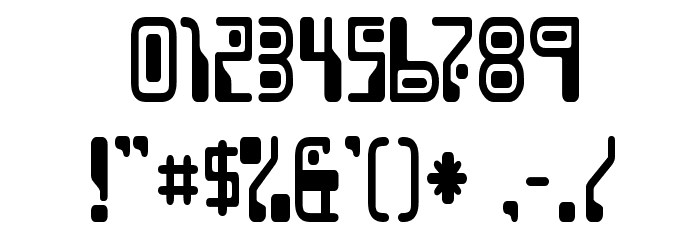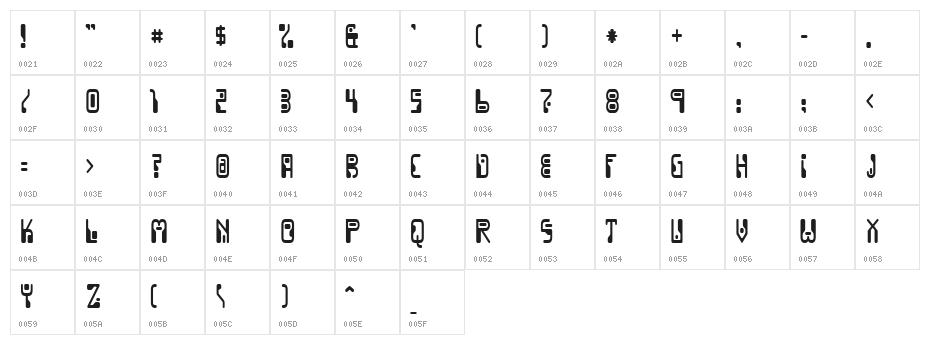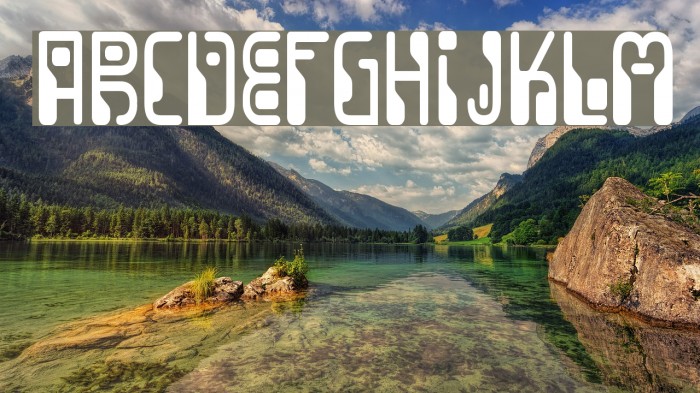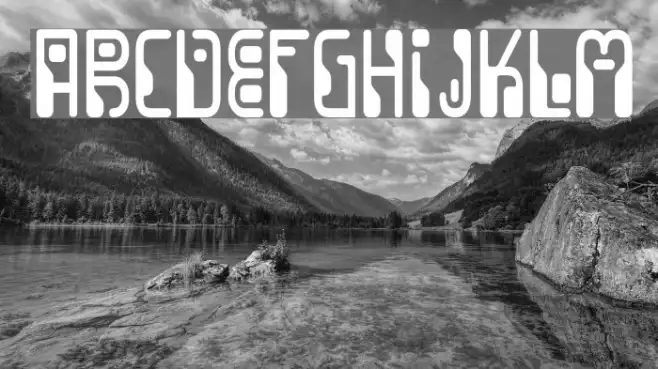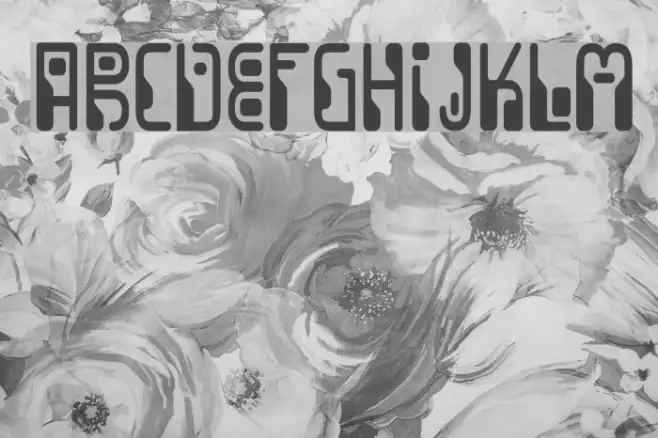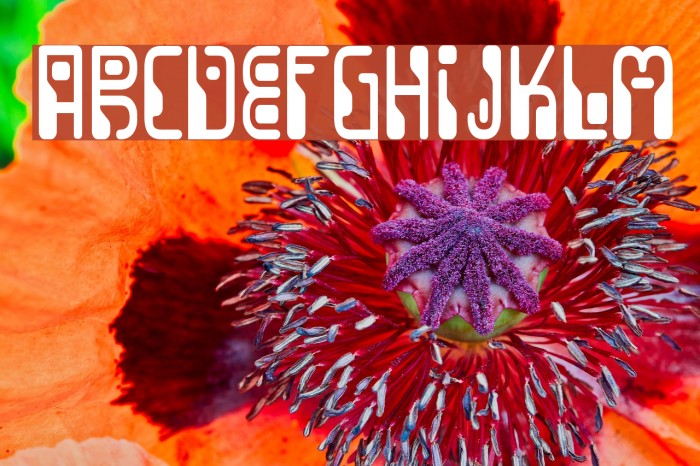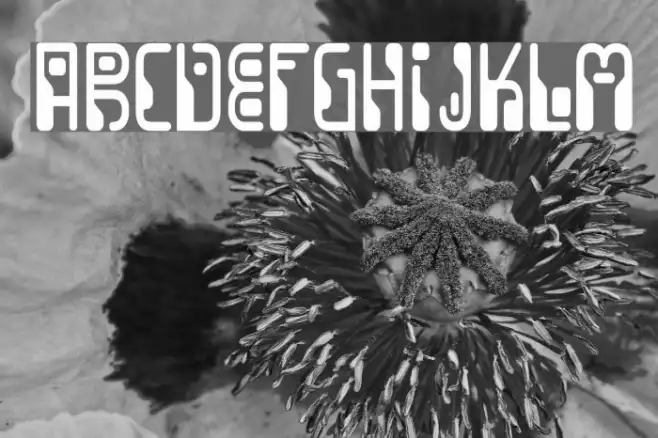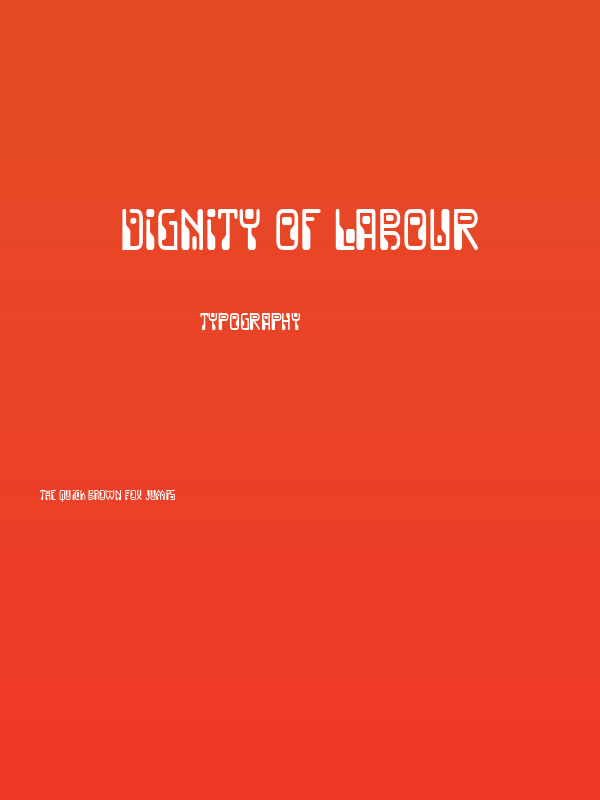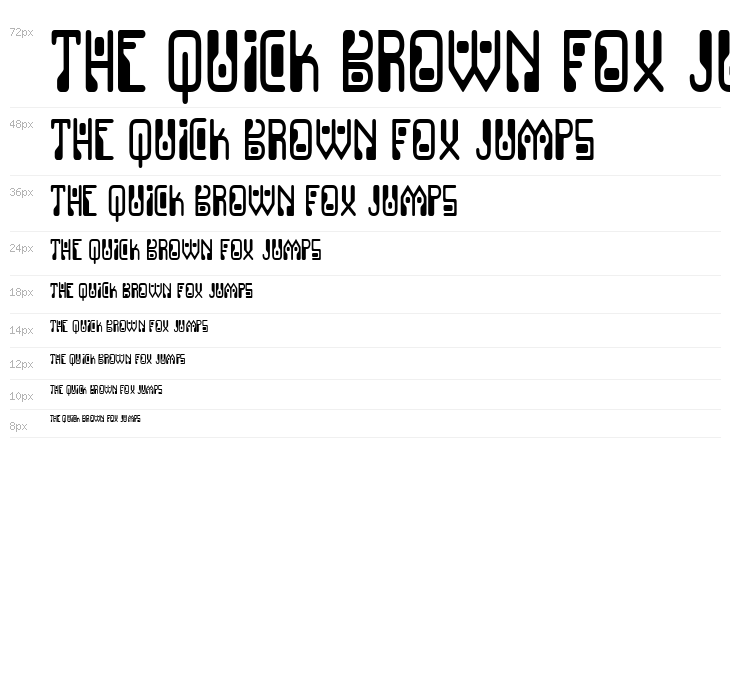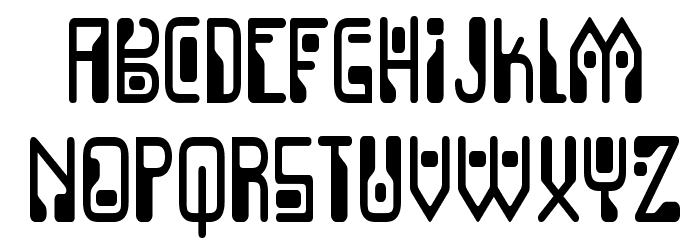
Dignity Of Labour Font
Dignity Of Labour Description
This font features a bold and unique design with a futuristic and geometric aesthetic. The characters are crafted with thick strokes and rounded edges, giving them a distinct and modern appearance. The uppercase and lowercase letters maintain a consistent style, with some characters incorporating cut-out sections that add to the font's visual interest. The numerals and special characters follow the same design principles, ensuring uniformity across all glyphs. This font's bold presence makes it suitable for attention-grabbing designs.
| Proposed Projects | Ideal for sci-fi themed designs, technology branding, video game titles, and modern posters. |